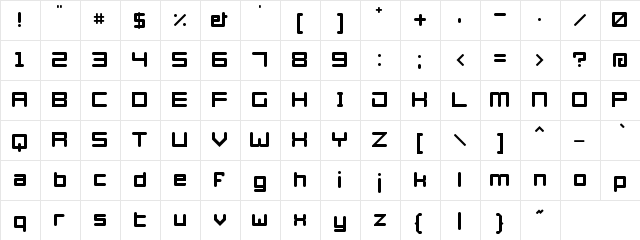
Azertype-Regular Regular
| Designer | Kija |
Design Context for Azertype-Regular Typeface
Azertype-Regular takes a measured approach to typography — its balanced proportions and neutral character make it a reliable workhorse for both digital and print work.